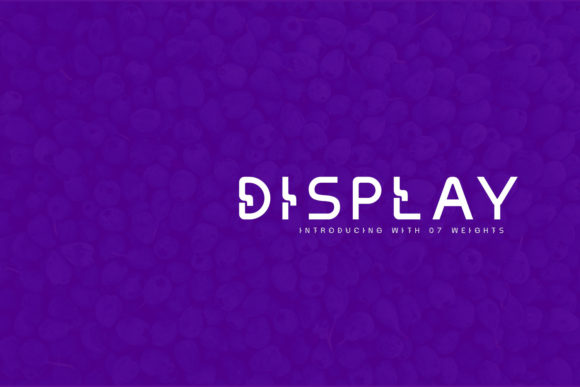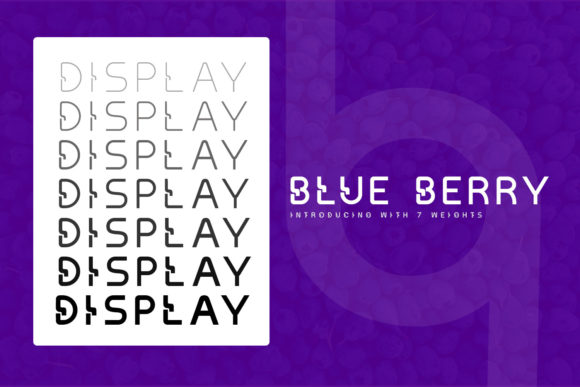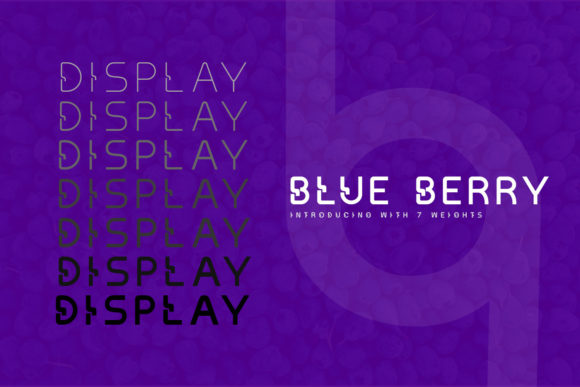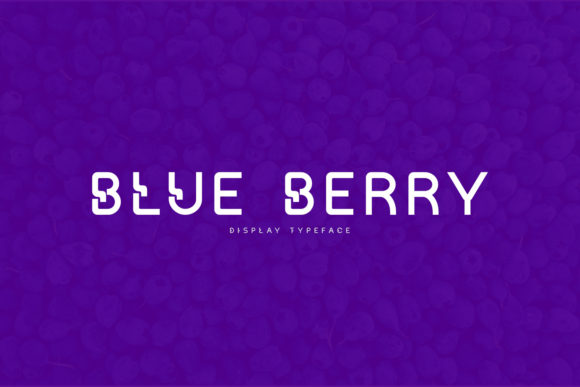
The Birth of a Masterpiece: Introducing Blueberry Font
Have you ever stared at a blank canvas, waiting for that perfect idea to strike? You’re not alone. As creatives, we’ve all been there, searching for that spark that sets our imagination ablaze. And sometimes, all it takes is the right tool to unlock our full potential. For graphic designers, digital artists, and writers, the right font can be the difference between a good design and a great one.
Enter Blueberry Font, a modern display font that seamlessly blends minimalism with an edgy style. Its clean lines and fine details make it the perfect choice for transforming your creations into futuristic and exquisite designs. Whether you’re working on a futuristic sci-fi project or a sleek tech startup, Blueberry Font is the ideal companion to bring your vision to life.
Blueberry Font Key Features
- Font Family: Blueberry is a sans-serif font family designed by Linotype and available in various font styles.
- Unique Characteristics: Blueberry Font features a distinctive, modern design with a rounded and friendly feel, making it suitable for use in digital and print media.
Blueberry Font Review
I recently had the chance to dive into the Blueberry Font, and I’m here to share my honest thoughts.
- Cute and playful style: The Blueberry Font is perfect for projects that need a touch of whimsy. Its rounded edges and subtle curves make it an instant charmer.
- Legibility: Despite its cute appearance, the font is surprisingly easy to read, even at smaller sizes.
- Good for digital use: The Blueberry Font works well on various digital platforms, including social media, blogs, and websites.
- Limited font weights: The Blueberry Font comes with a limited range of weights, which might not be ideal for projects that require more flexibility.
- Not suitable for formal content: The playful nature of the font might not be suitable for formal or professional content, such as business reports or academic papers.
Overall, the Blueberry Font is a fun and versatile addition to any designer’s toolkit. While it may not be the best choice for every project, it’s definitely worth considering for projects that need a playful touch.
The Blueberry Font is commonly used for:
- Children’s books and educational materials
Alternatives to Blueberry Font for Designers
Great Vibes is a modern, elegant script font perfect for adding a touch of sophistication to your designs. It’s ideal for use in titles, headings, and quotes where you want to convey a sense of luxury and refinement.
Compared to Blueberry Font, Great Vibes has a more refined and polished look, making it a great choice for high-end branding and marketing materials.
Lobster is a fun, playful script font that’s great for adding a touch of whimsy to your designs. It’s perfect for use in titles, headings, and body text where you want to convey a sense of friendliness and approachability.